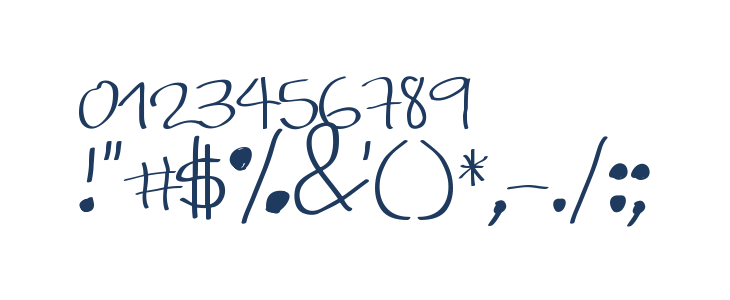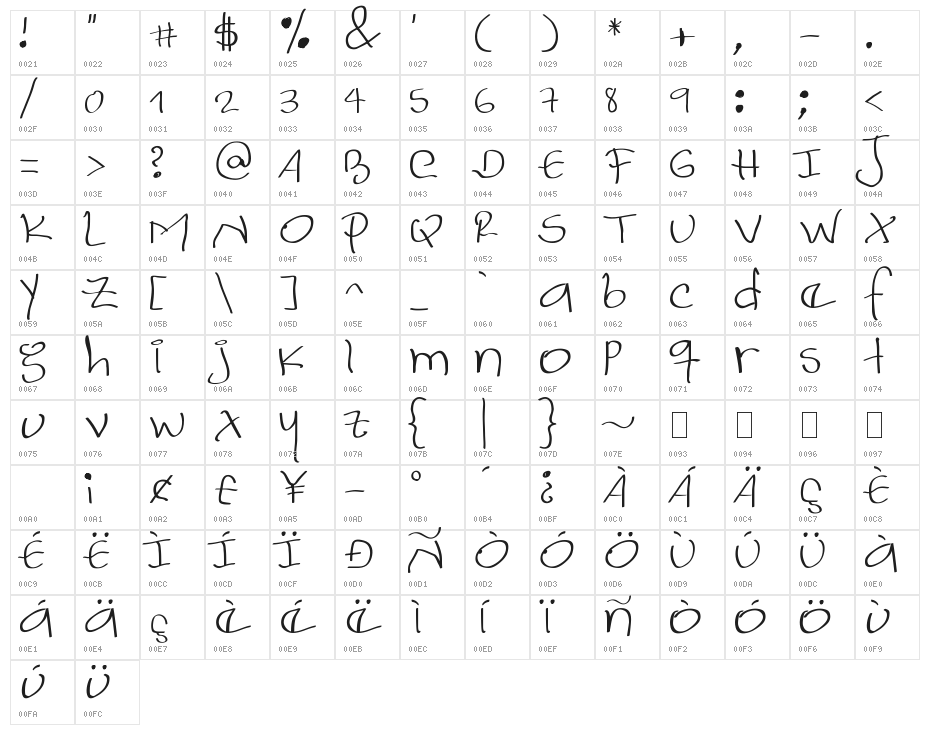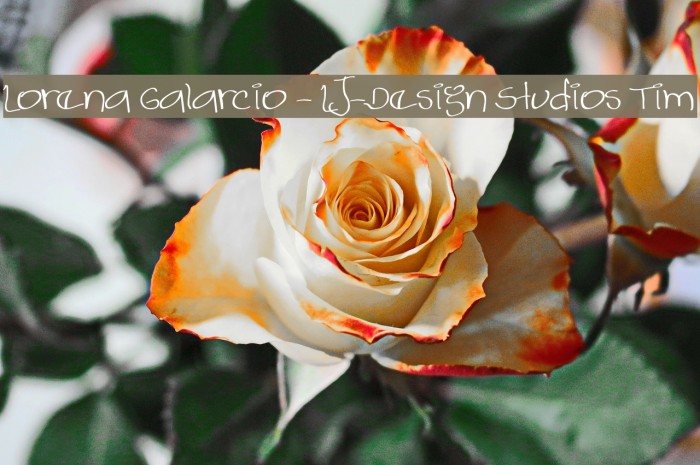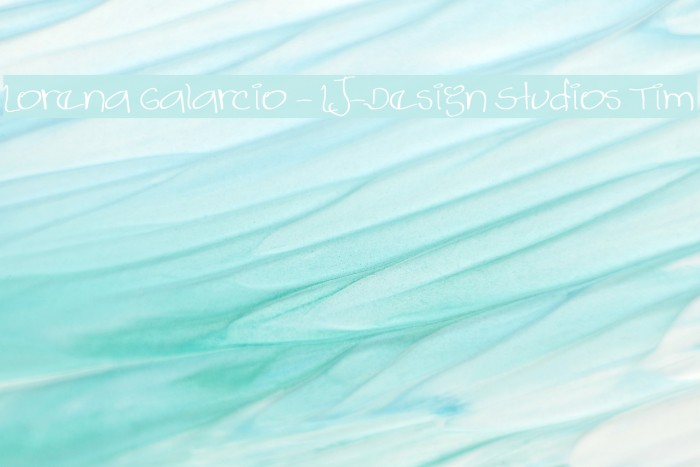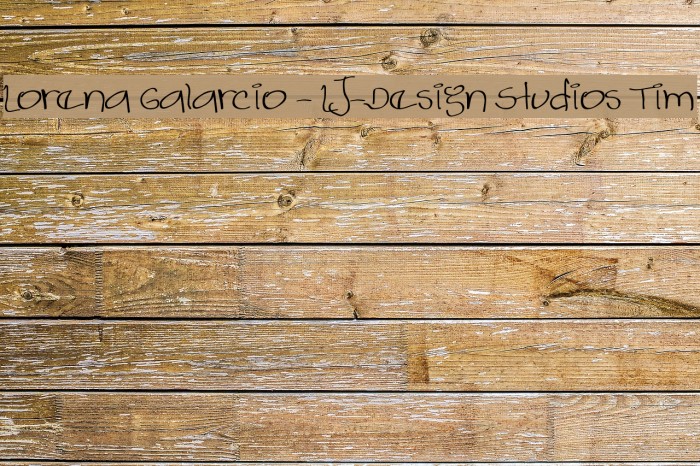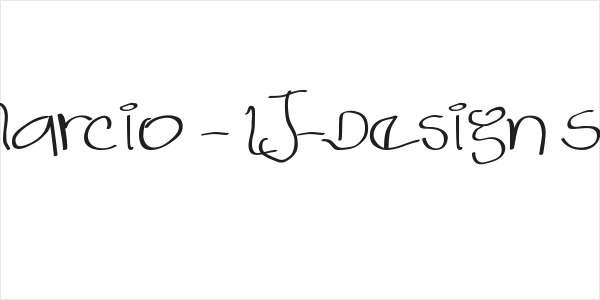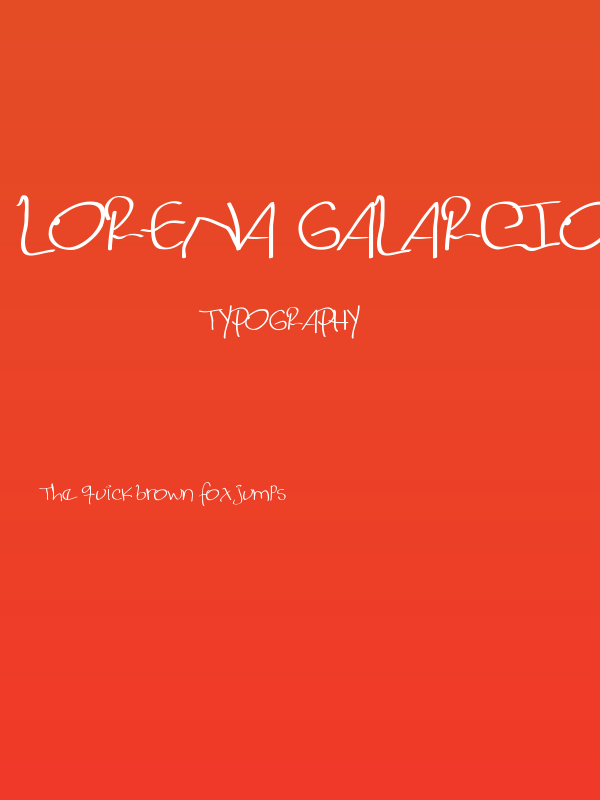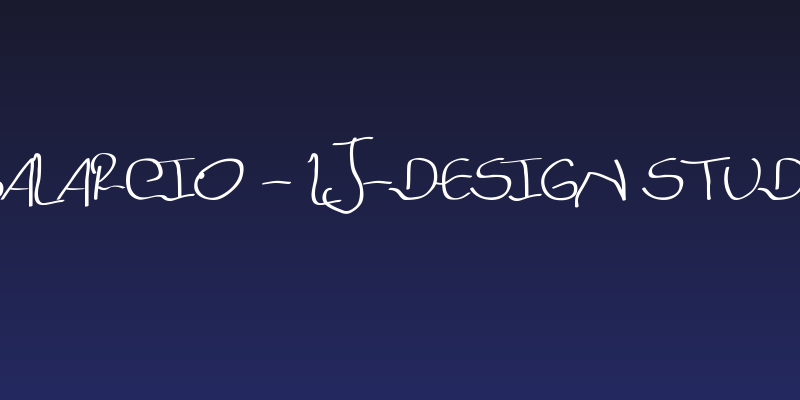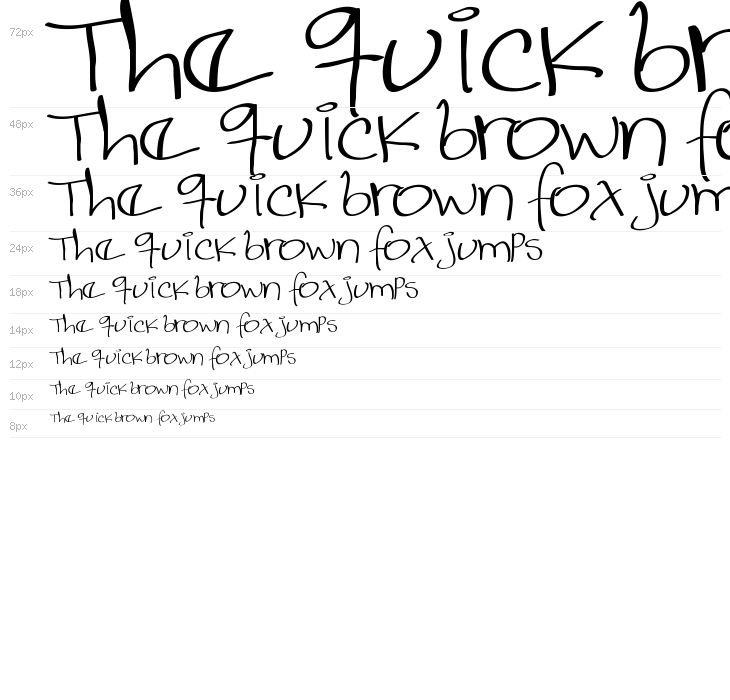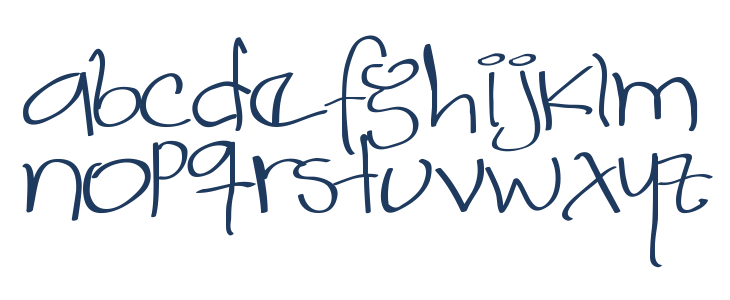
Lorena Galarcio - LJ-Design Studios Tim Font
Lorena Galarcio - LJ-Design Studios Tim Description
This font exhibits a playful and artistic handwritten style, characterized by its fluid and dynamic strokes. The letters are crafted with a sense of spontaneity, giving them a lively and informal appearance. The uppercase letters are bold and slightly irregular, while the lowercase letters maintain a consistent flow, enhancing the font's casual charm. The numbers and special characters follow the same whimsical design, making the font versatile for creative projects. The overall impression is one of creativity and expressiveness, suitable for designs that aim to convey a personal touch.
| Proposed Projects | Ideal for greeting cards, invitations, personal branding, and creative posters. |